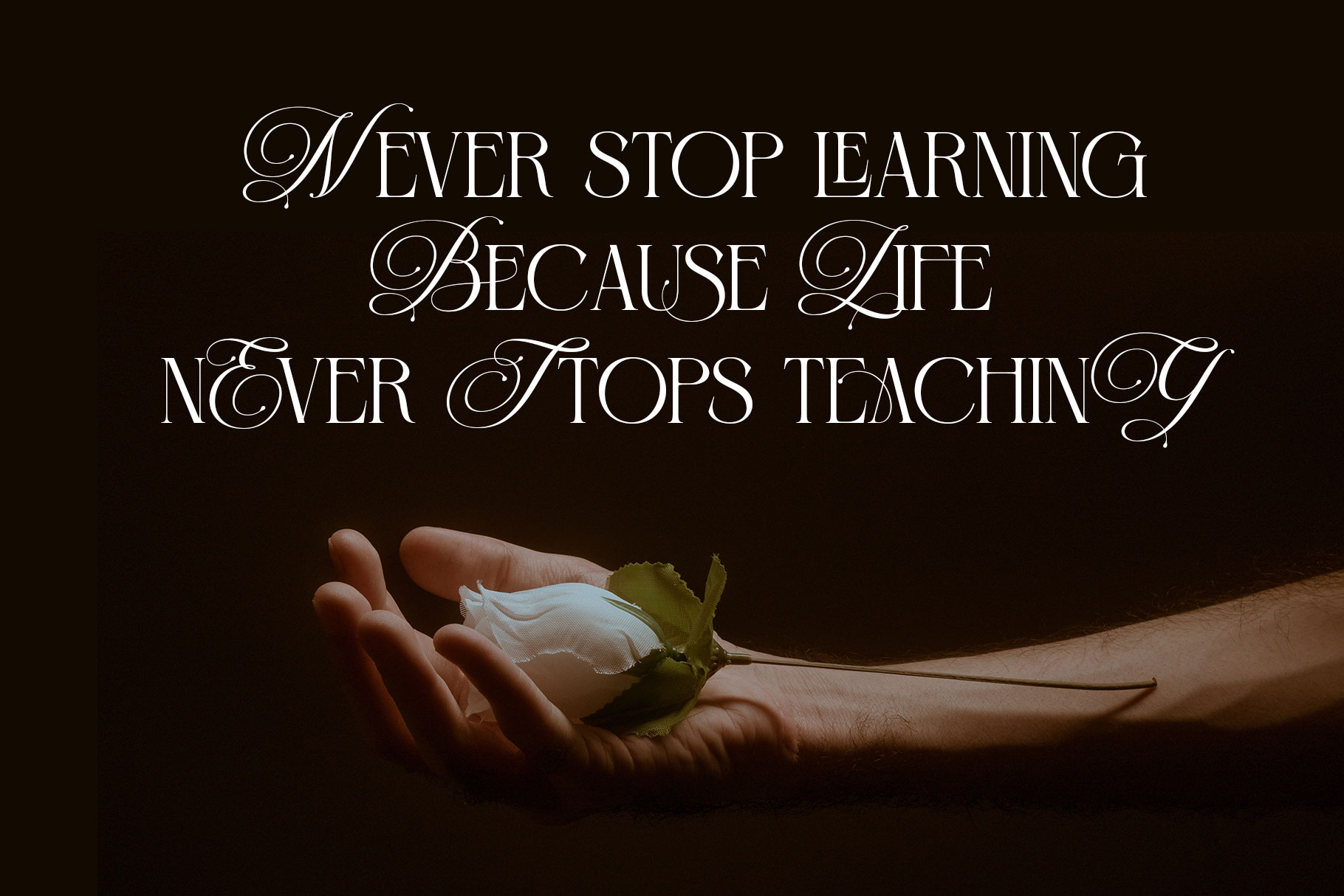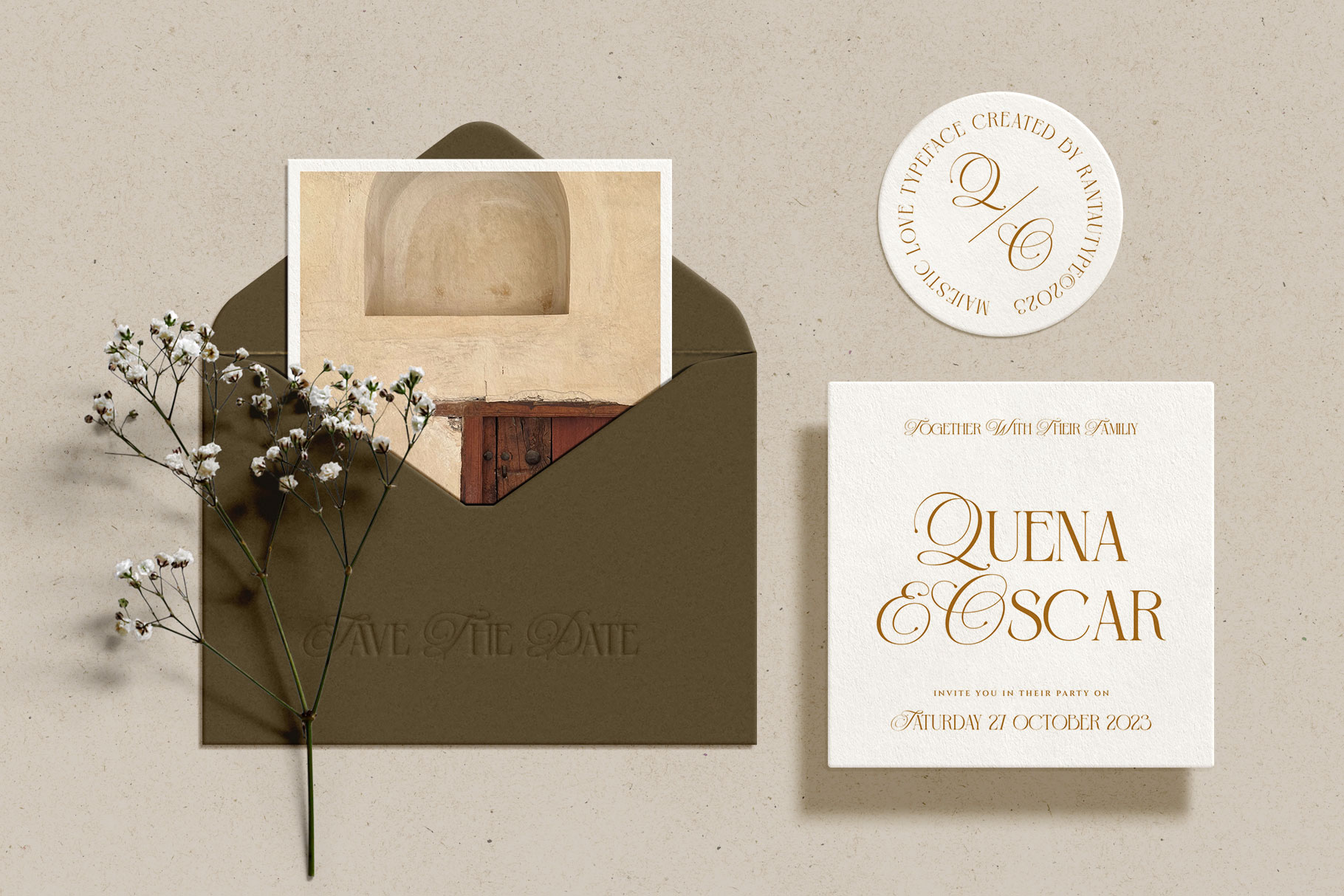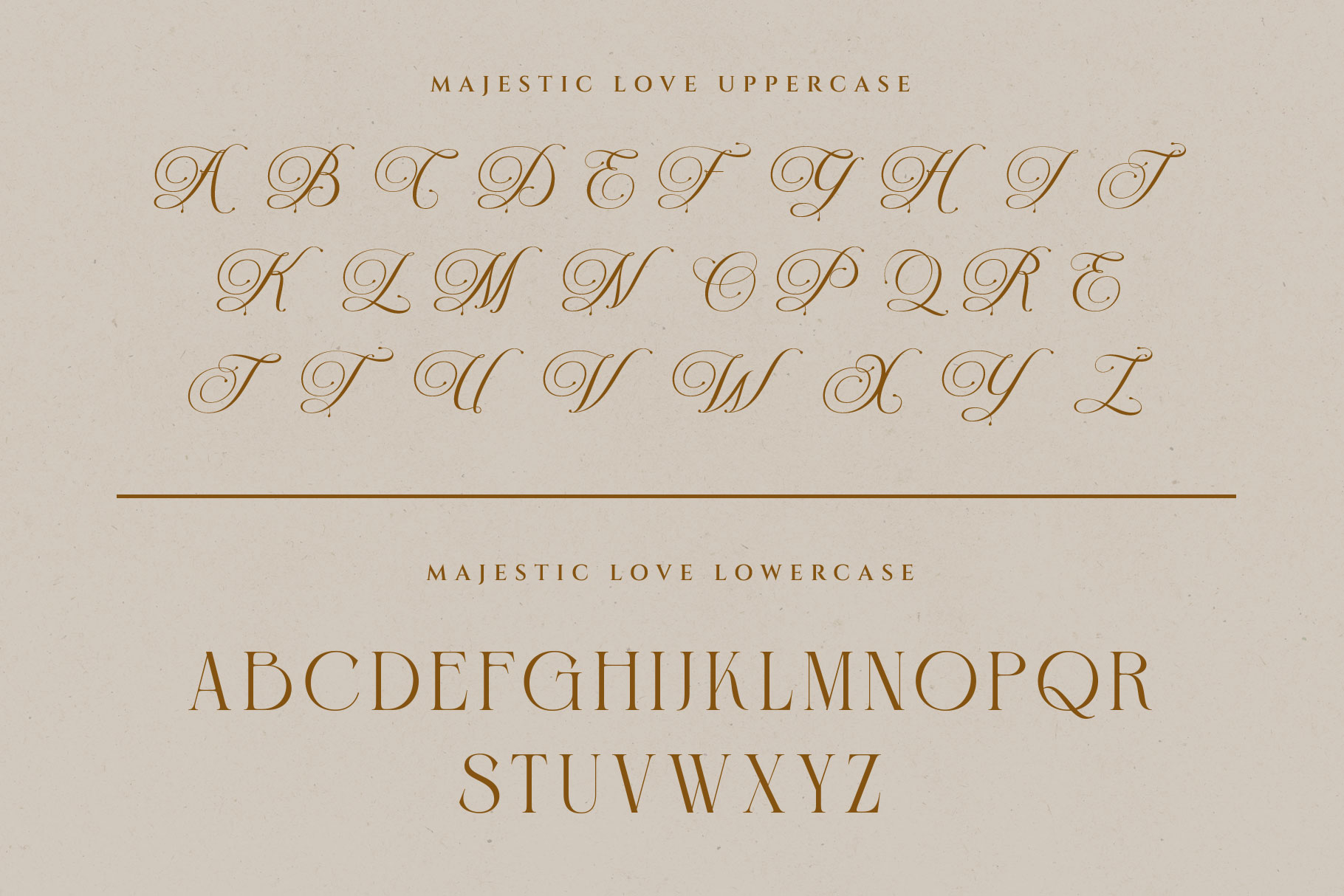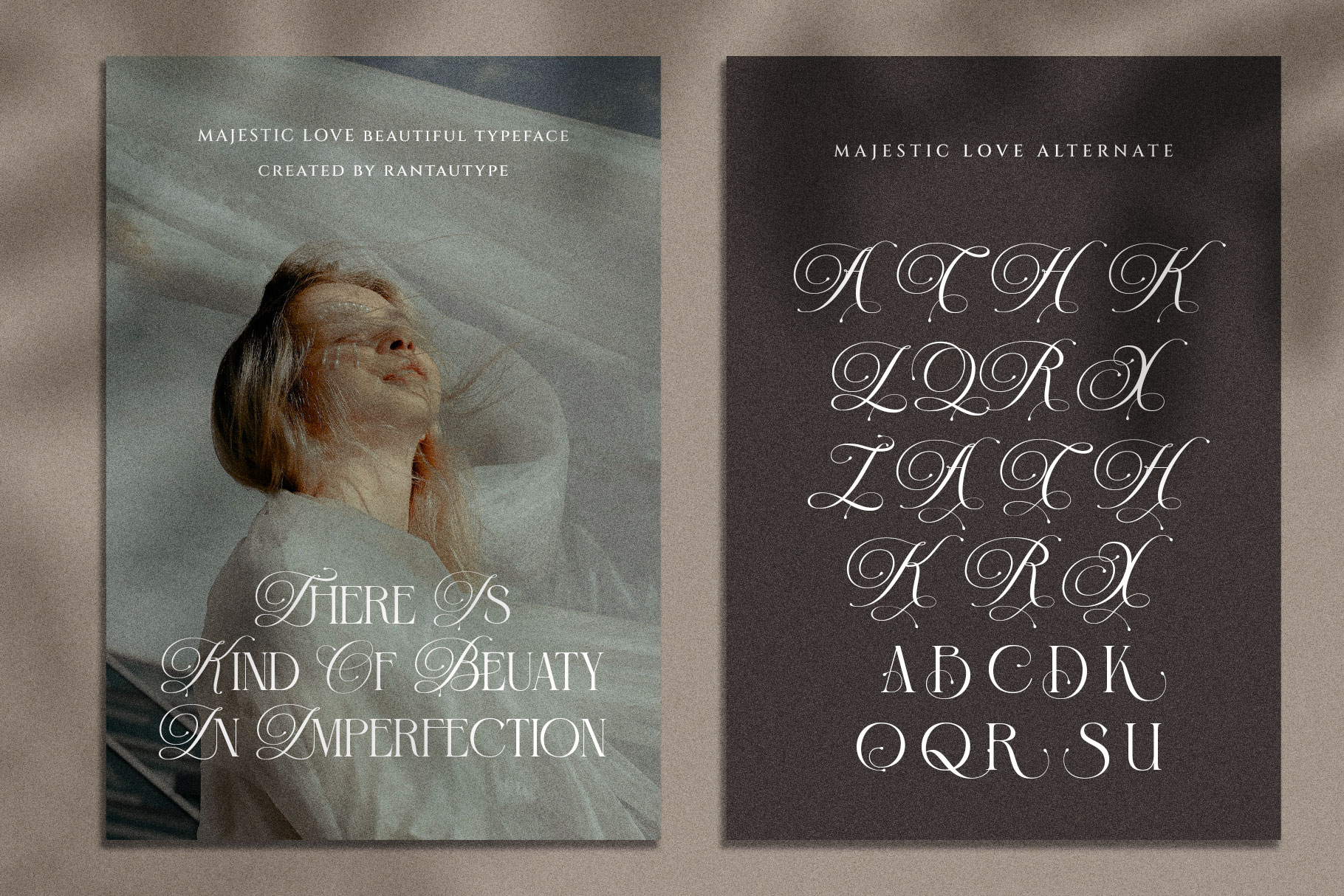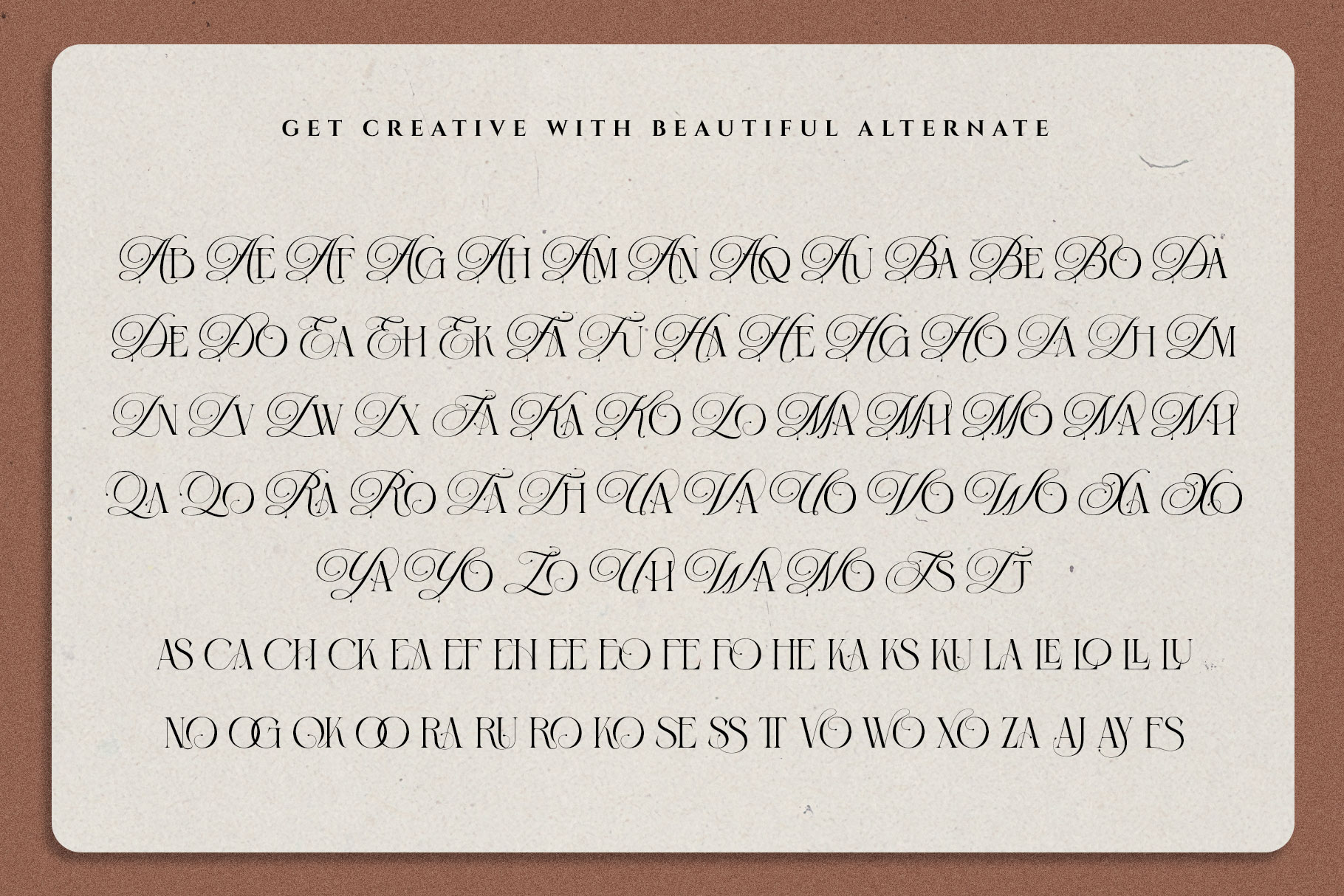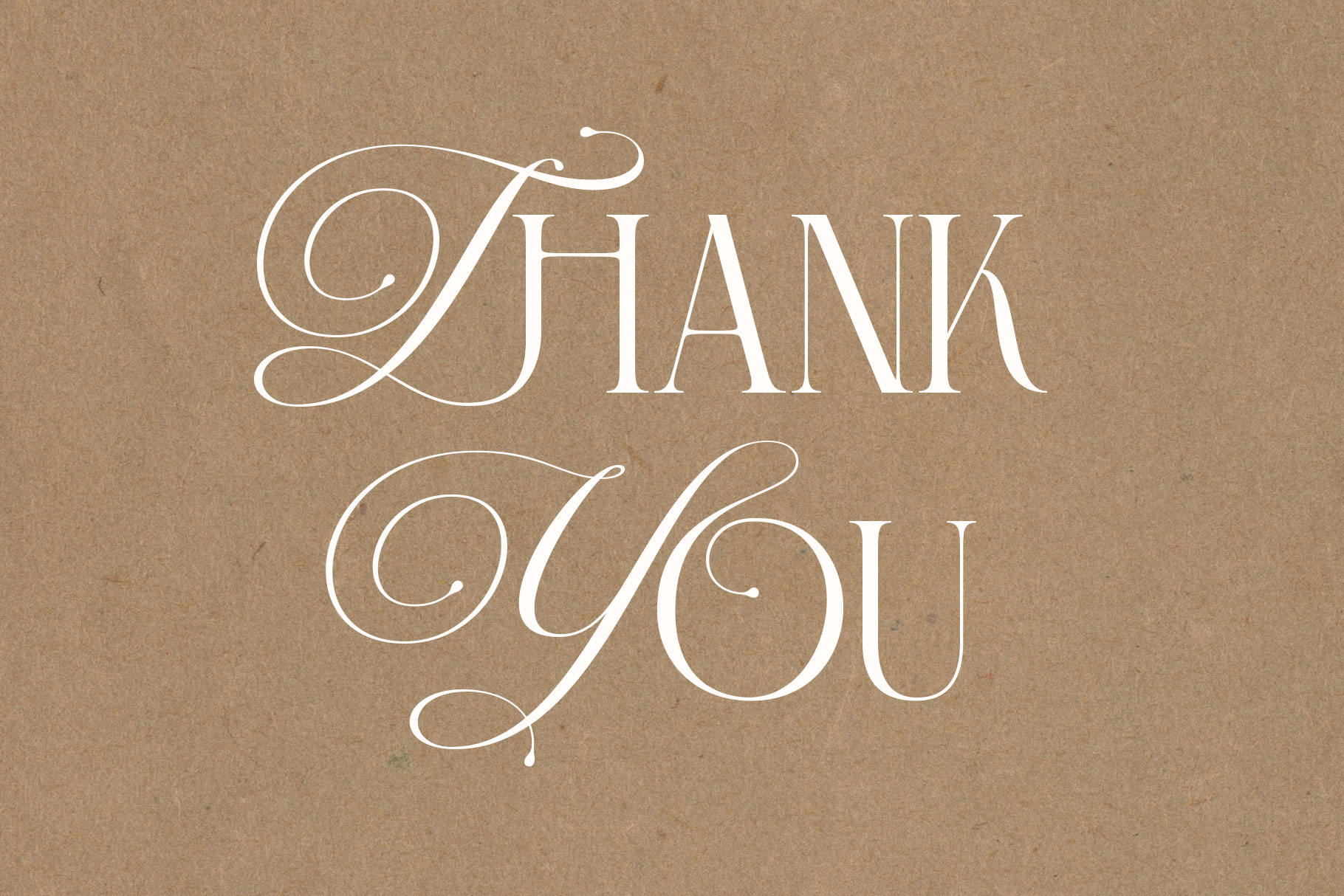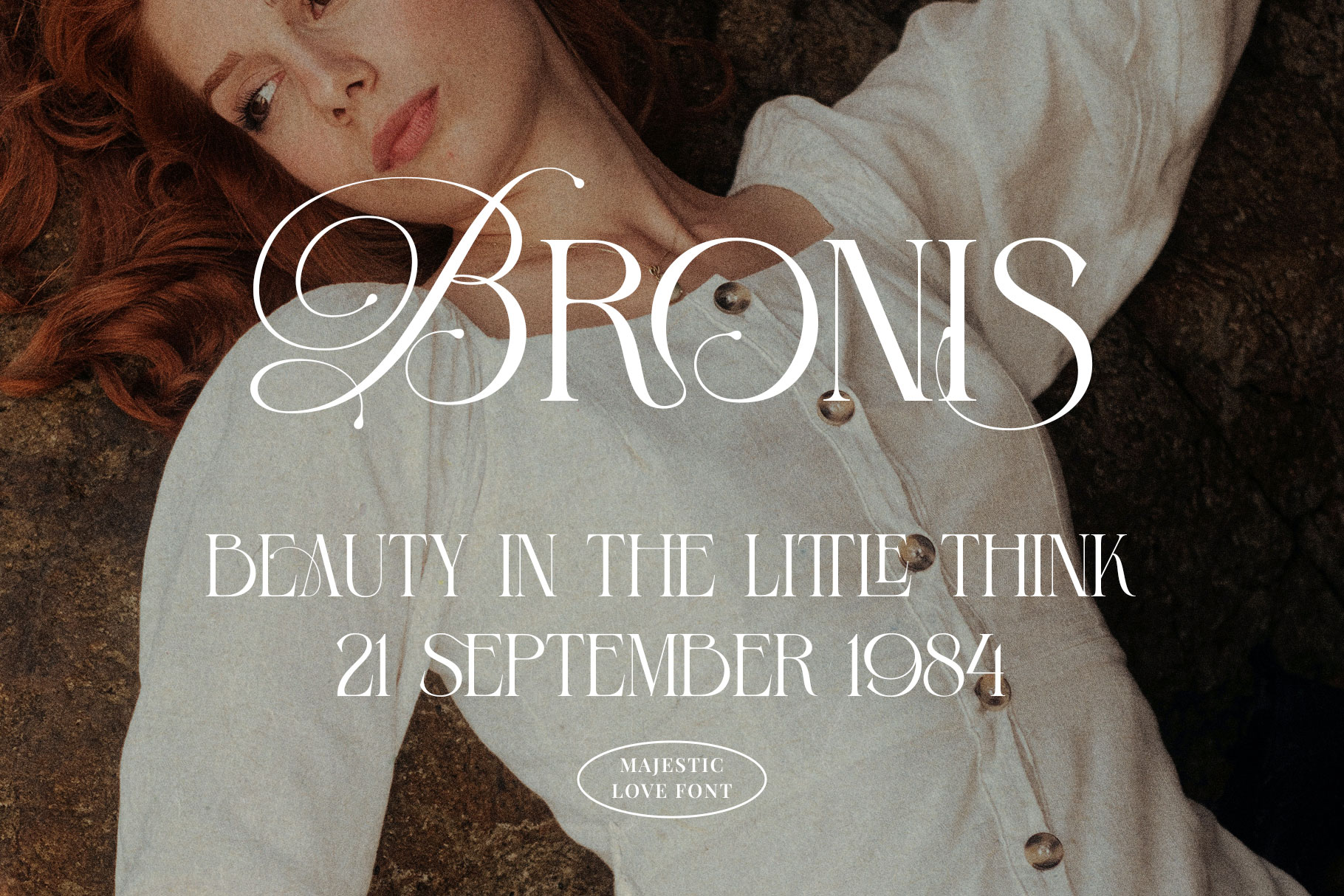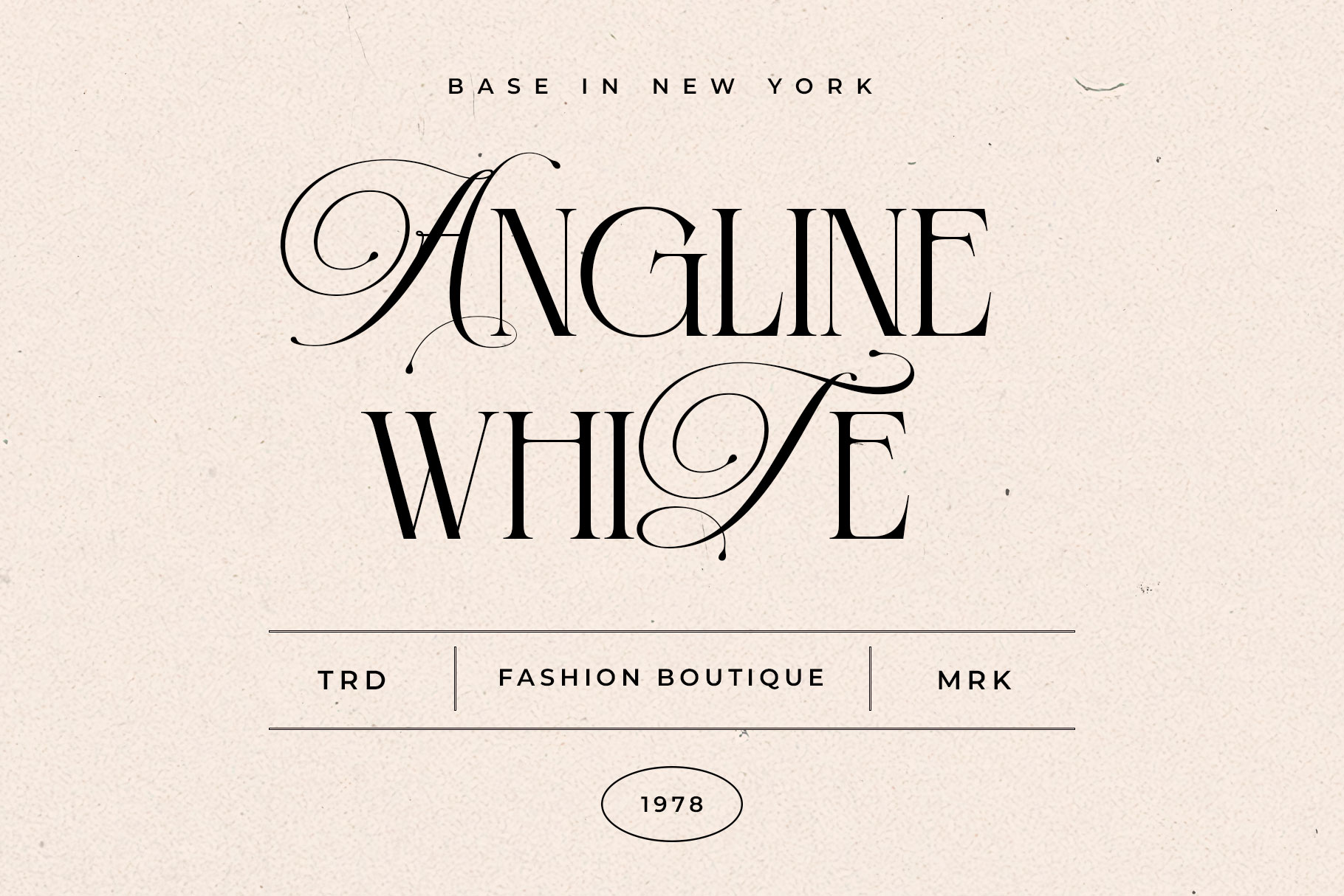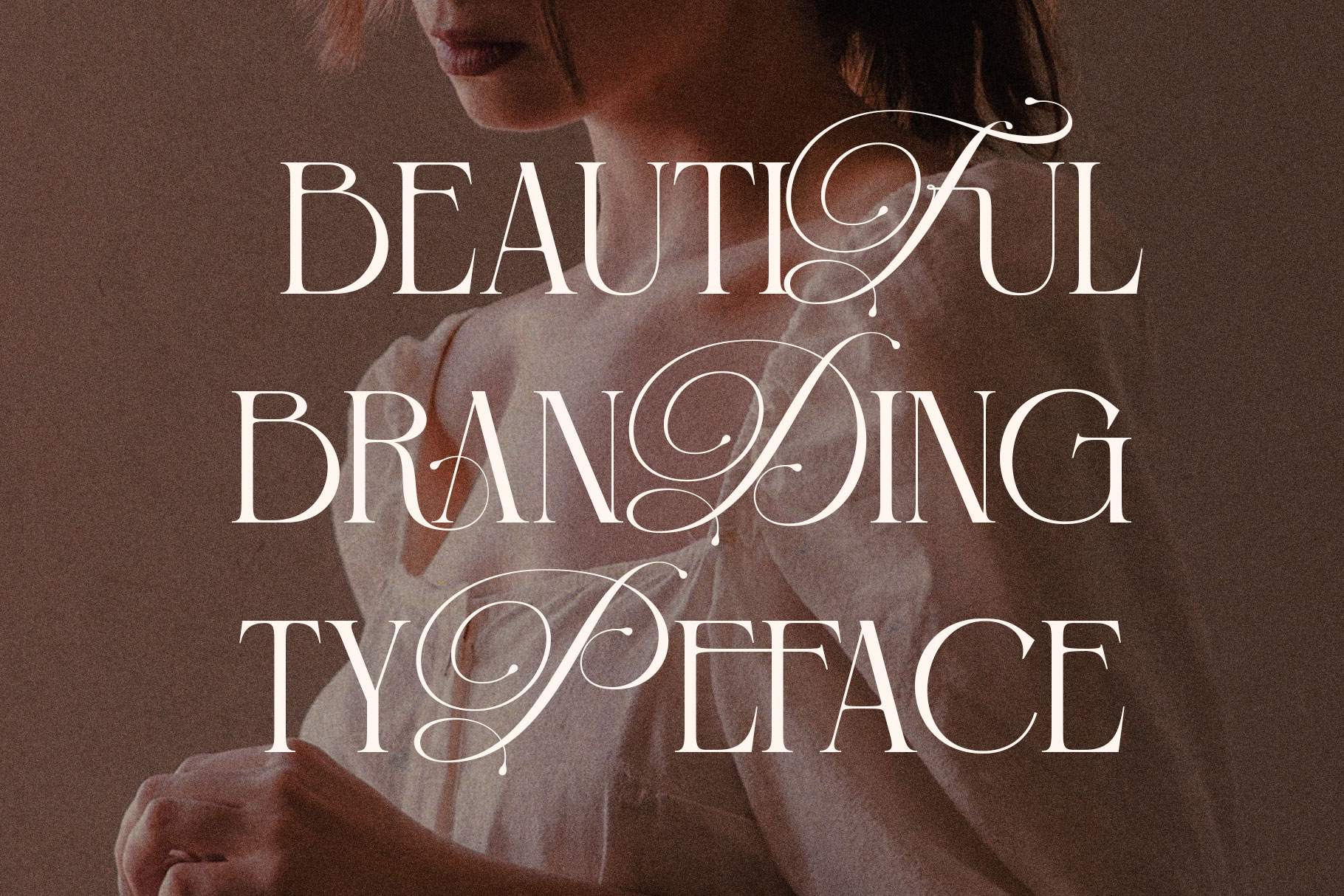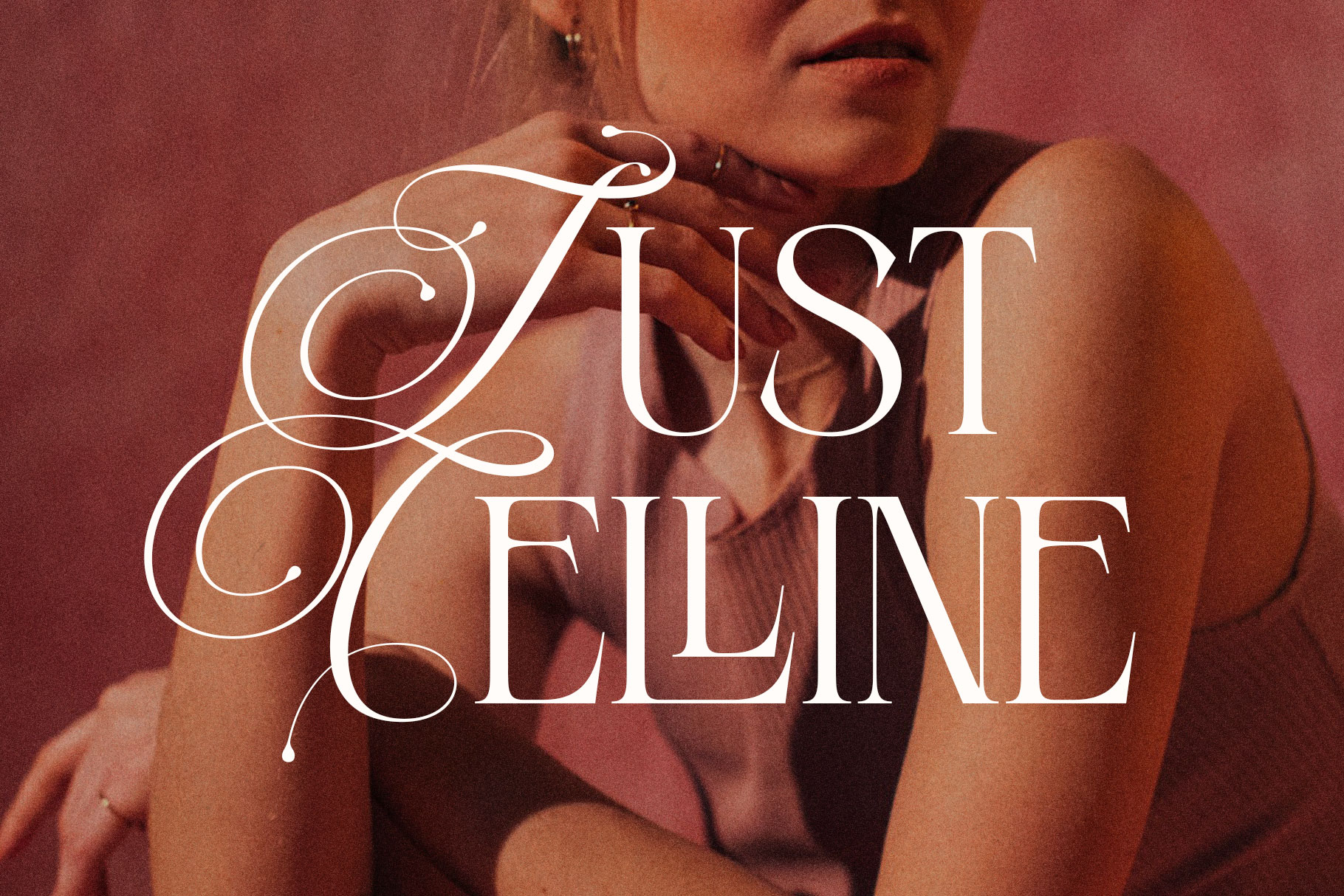
Majestic Love Beautiful Hybrid Serif Font
Majestic Love is a beuatiful and inspiring mix of classic calligraphy and modern serif. I’ve also love combination the calligraphy and serif make classic and nostalgic. Majestic Love brings a touch of charm and sophistication to branding, editorial designs, and more.
Majestic Love made mainly for headlines, titles, and is well-suited for advertising, vintage mood board, branding, logotypes, packaging, titles, editorial design, modern logos, websites, social media quotes, wedding branding, modern and vintage design. Now you can choice Majestic Love to make a beautiful design.
• Beautiful Alternate
• Unique Ligature